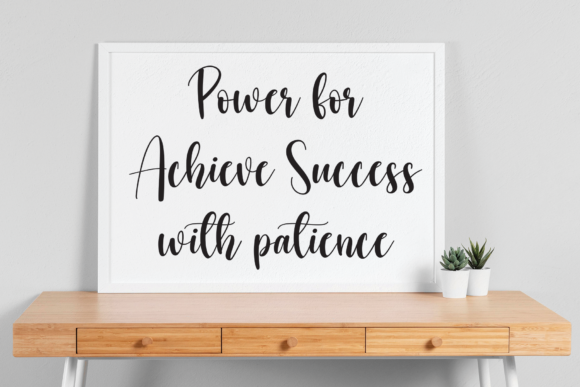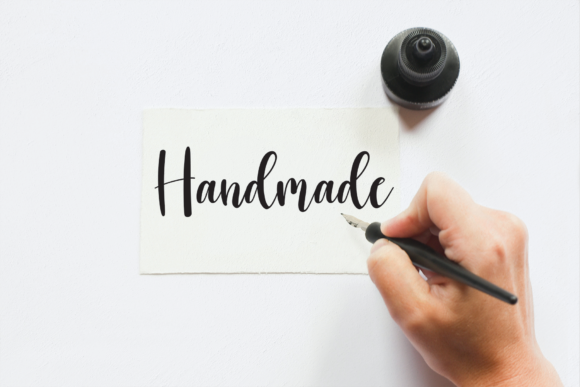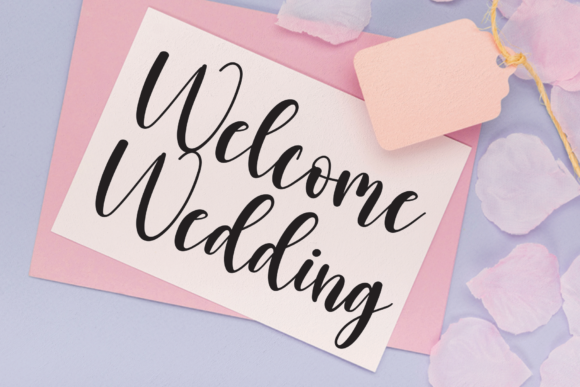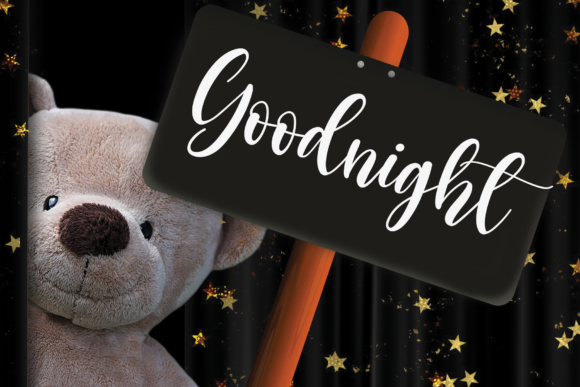
The Catch: Discovering the Charm of Fishing Font
I’ll never forget the time I was working on a branding project for a local tackle shop. I had the logo concept nailed, but I just couldn’t find the right font to bring it all together. The client wanted something that felt friendly, approachable, and, well, a little bit rustic. That’s when I stumbled upon Fishing Font, and it was love at first sight! ✨
An Honest Review: The Good, the Bad, and the Quirky
- ✨ Unique and beautiful handwritten touch
- ✅ Perfect for creating eye-catching logos, branding, and quotes
- ✅ Every letter has a distinctive character that adds personality to your design
- ✅ Works well for both digital and print projects
- ⚠️ Some letters may appear a bit inconsistent in terms of spacing, which can make it tricky to use for body text
- 🤔 Limited availability of stylistic alternates, which might limit your design options
The Story Behind Fishing Font:
Fishing Font was designed by a talented type designer who wanted to capture the carefree spirit of a summer day by the lake. Inspired by vintage fishing nets and weathered wooden signs, the font’s unique character is both nostalgic and timeless. The designer’s goal was to create a font that would make designers feel like they’re sipping lemonade on the dock, watching the sunset 🌅.
| Is Fishing Font suitable for body text? | While Fishing Font is beautiful, it’s best suited for headlines, titles, and short paragraphs. Its unique character and spacing may make it tricky to read in longer blocks of text. |
| Does Fishing Font come with any OpenType features? | Yes! Fishing Font includes a range of OpenType features, including stylistic alternates, swashes, and glyphs. |
| Is Fishing Font available in different weights or styles? | Currently, Fishing Font is available in a single weight, but the designer may release additional weights or styles in the future. |